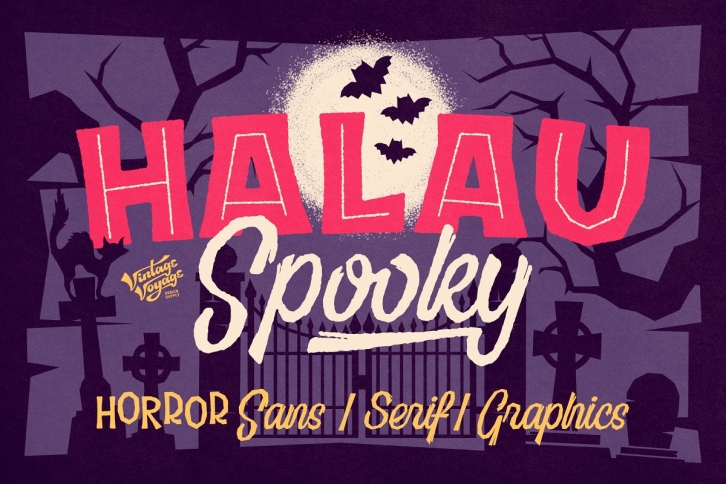
HALAU • Spooky Edition
Introducing you a cartoon font family straight for your Halloween or other horror events. A wide range of variations completely satisfy the most sophisticated font gourmet. From Thin to Bold horror sans styles and a fancy horror script. Also, 62 Halloween graphic elements come as a Graphic Style! Each font has Normal and Roughen Styles. All sans serif's come as filled, inlined and inline separately. 33 typefaces total.
• Halau Script has two uppercase letters sets and a lot of alternates included swashes. Halau Sans also has few alternate symbols and pair of ligatures (fj, fi).